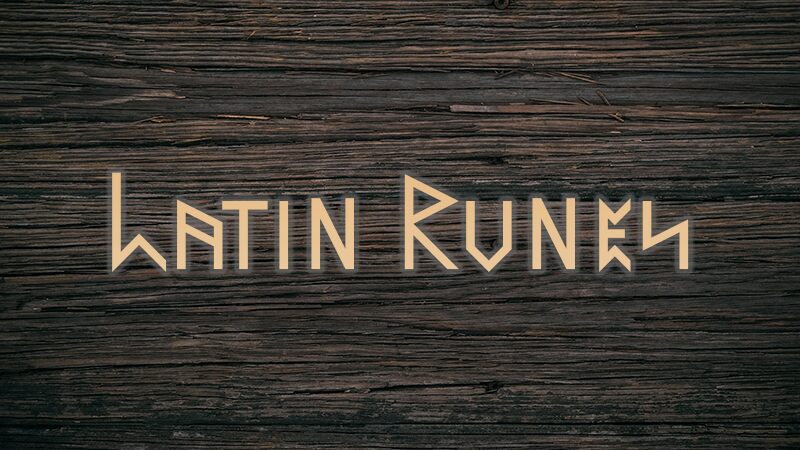
Latin Runes Free
Latin Runes emerges as a captivating typeface crafted by Virstag that merges the enigmatic allure of ancient runes with gothic flair. Its semi-light weight adds a unique touch, providing a modern twist to the historic aesthetic often associated with heavier gothic fonts. The slender yet pronounced strokes evoke an old-world charm while maintaining readability and contemporary appeal.
The distinct character shapes of Latin Runes offer a mystical quality that makes it ideal for projects aiming to channel an arcane or historical vibe without sacrificing design sophistication. From evocative book covers to atmospheric promotional materials, this font holds immense potential for designers seeking to infuse their work with storied elegance and an air of mystery.
Virstag's creation stands out due to its stylistic versatility, adeptly straddling the line between tradition and innovation, making it a compelling choice for various creative endeavors that require both visual impact and stylistic integrity.